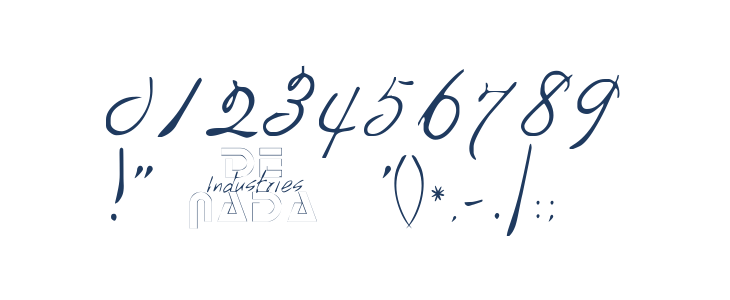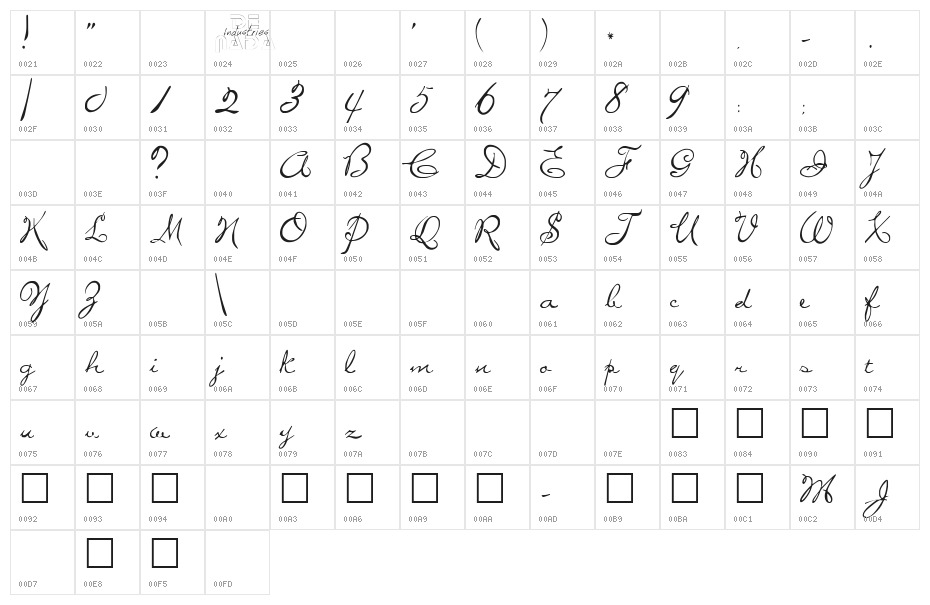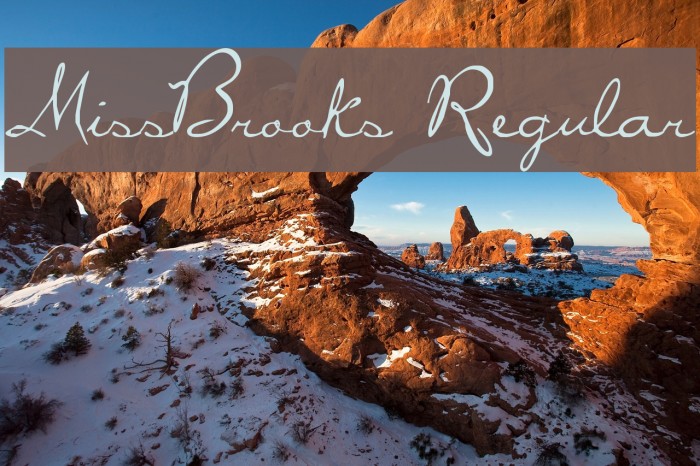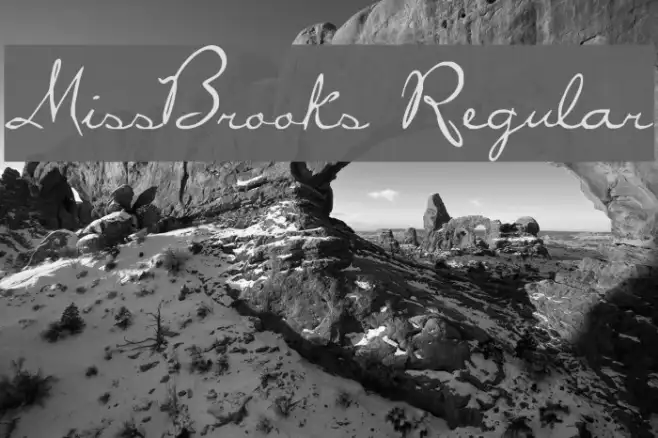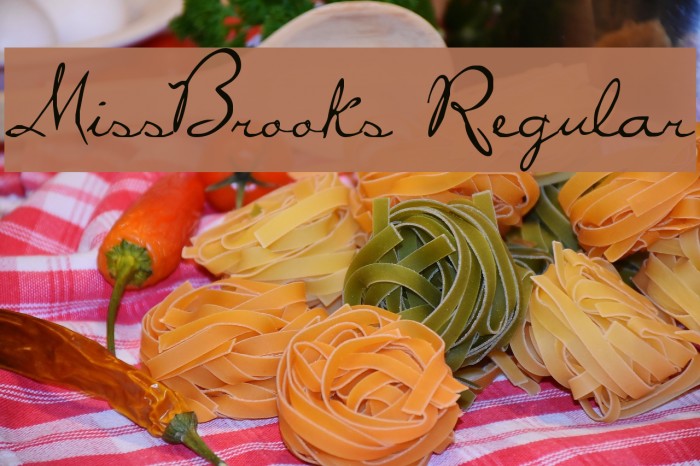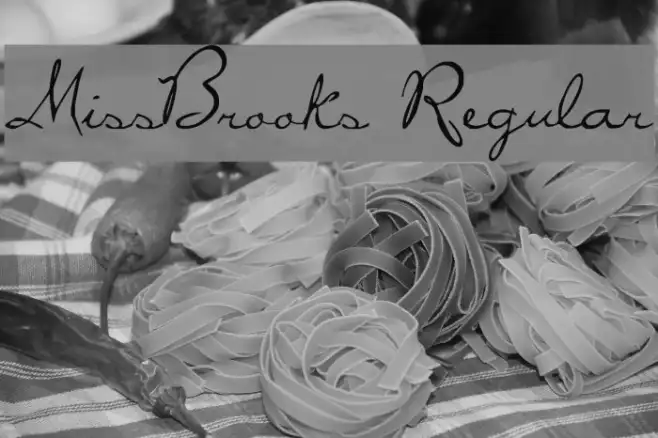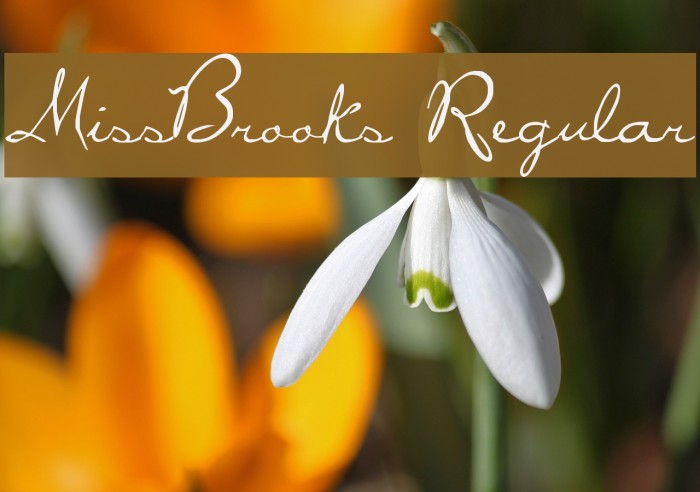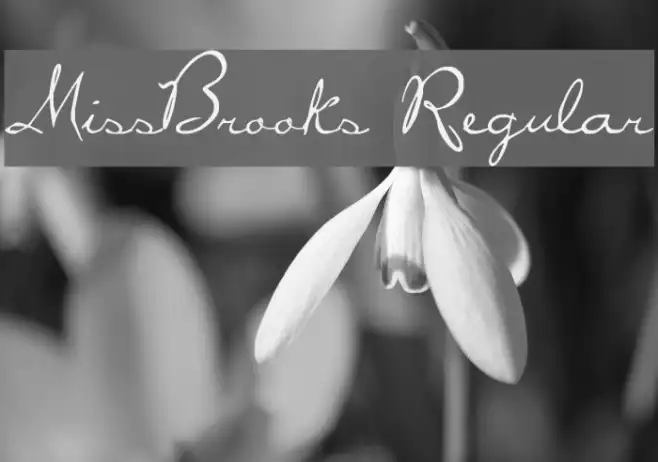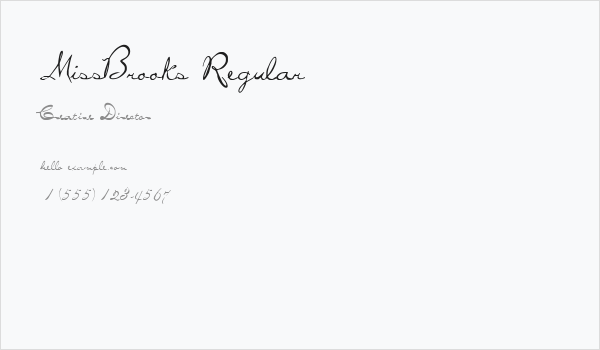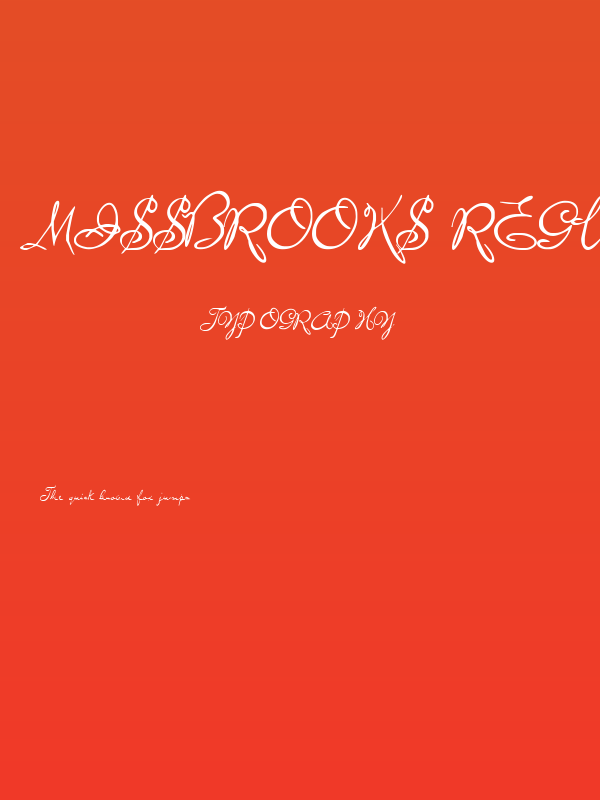
MissBrooks Regular Font
MissBrooks Regular Description
This font features an elegant and flowing script style, characterized by its cursive and connected letterforms. The uppercase letters exhibit a sophisticated flair with intricate loops and swashes, while the lowercase letters maintain a smooth and consistent flow. The numerals are designed with a similar cursive style, adding to the overall cohesive appearance. Special characters are thoughtfully integrated, maintaining the font's graceful aesthetic. The font's design evokes a sense of elegance and refinement, making it suitable for formal and decorative applications.